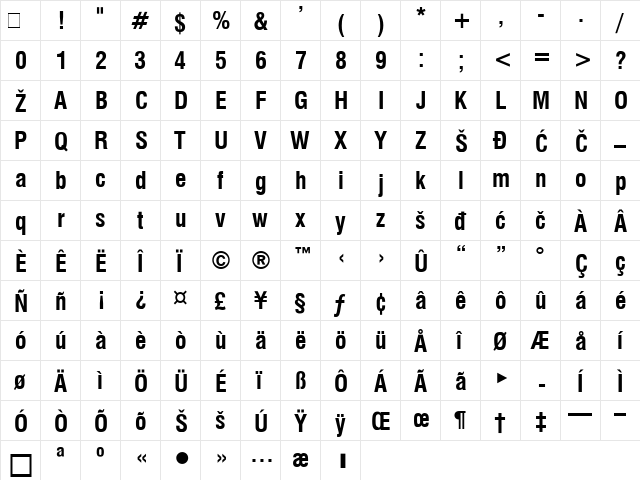
Complete YU_Latinica_12 Regular glyph index. Displaying only characters natively supported by YU_Latinica_12 Regular font.
YU_Latinica_12 is a composed and adaptable typeface that performs quietly and consistently across a wide range of design contexts.